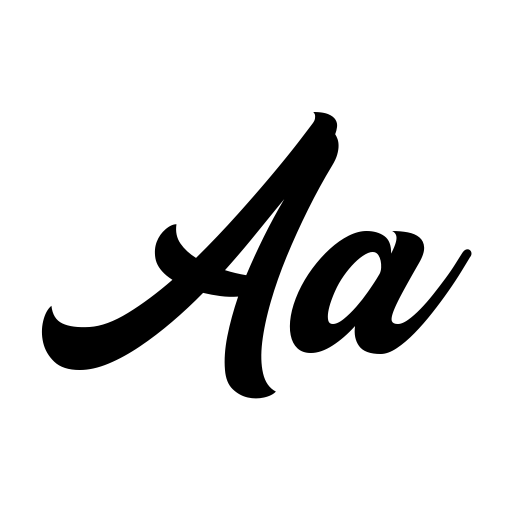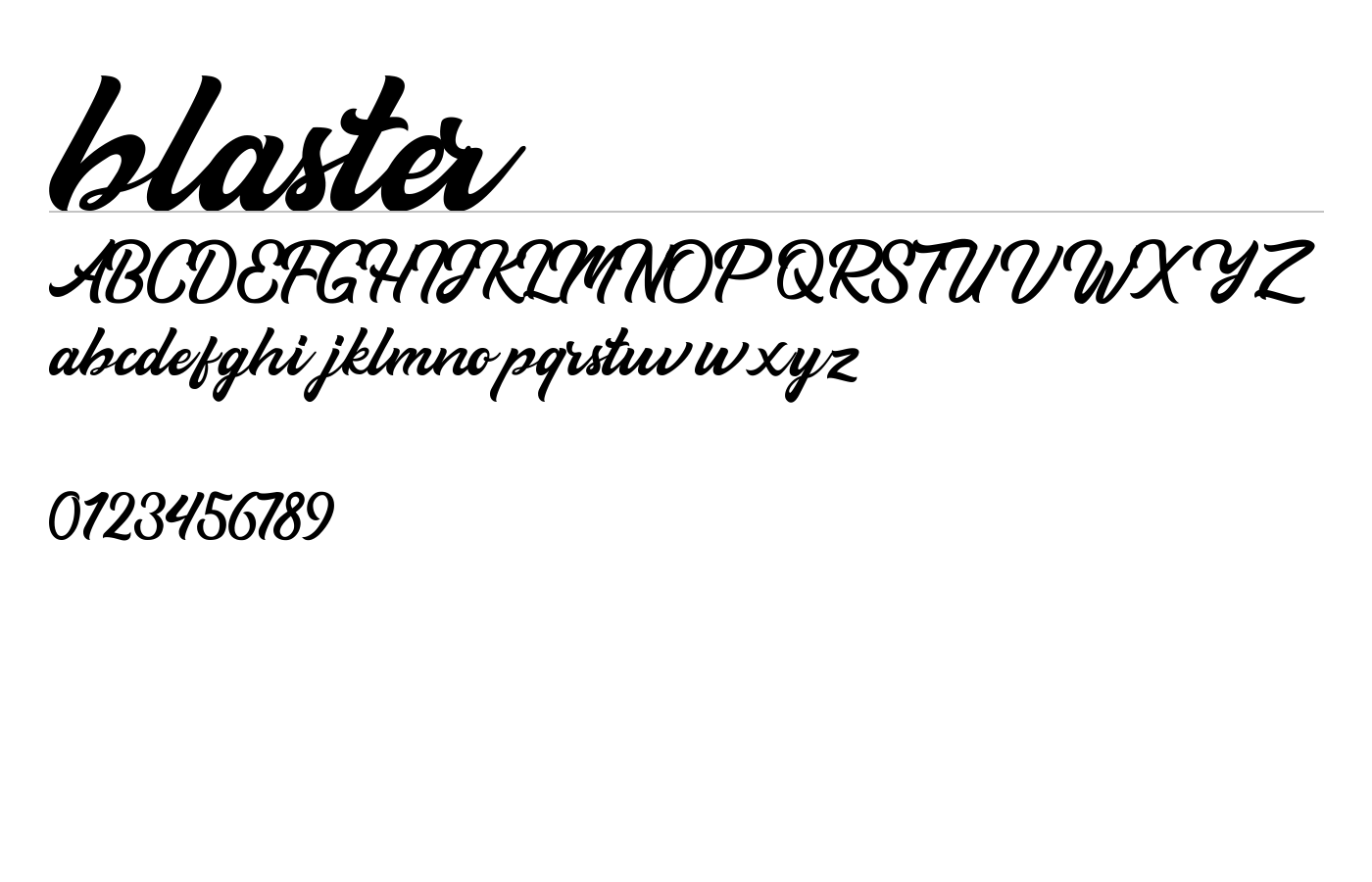
Blaster is a stylish script font with a smooth, flowing design that combines elegance with a casual, hand-crafted feel. Its medium weight, moderate contrast, and graceful curves make it perfect for adding a touch of personality and warmth to logos, invitations, and branding projects that seek a friendly yet refined look. This font works well for headlines and display purposes where a dynamic, inviting style is desired.
blaster Font
About blaster Font
| Font family | blaster Font |
| Designer | Bagas Satriawan |